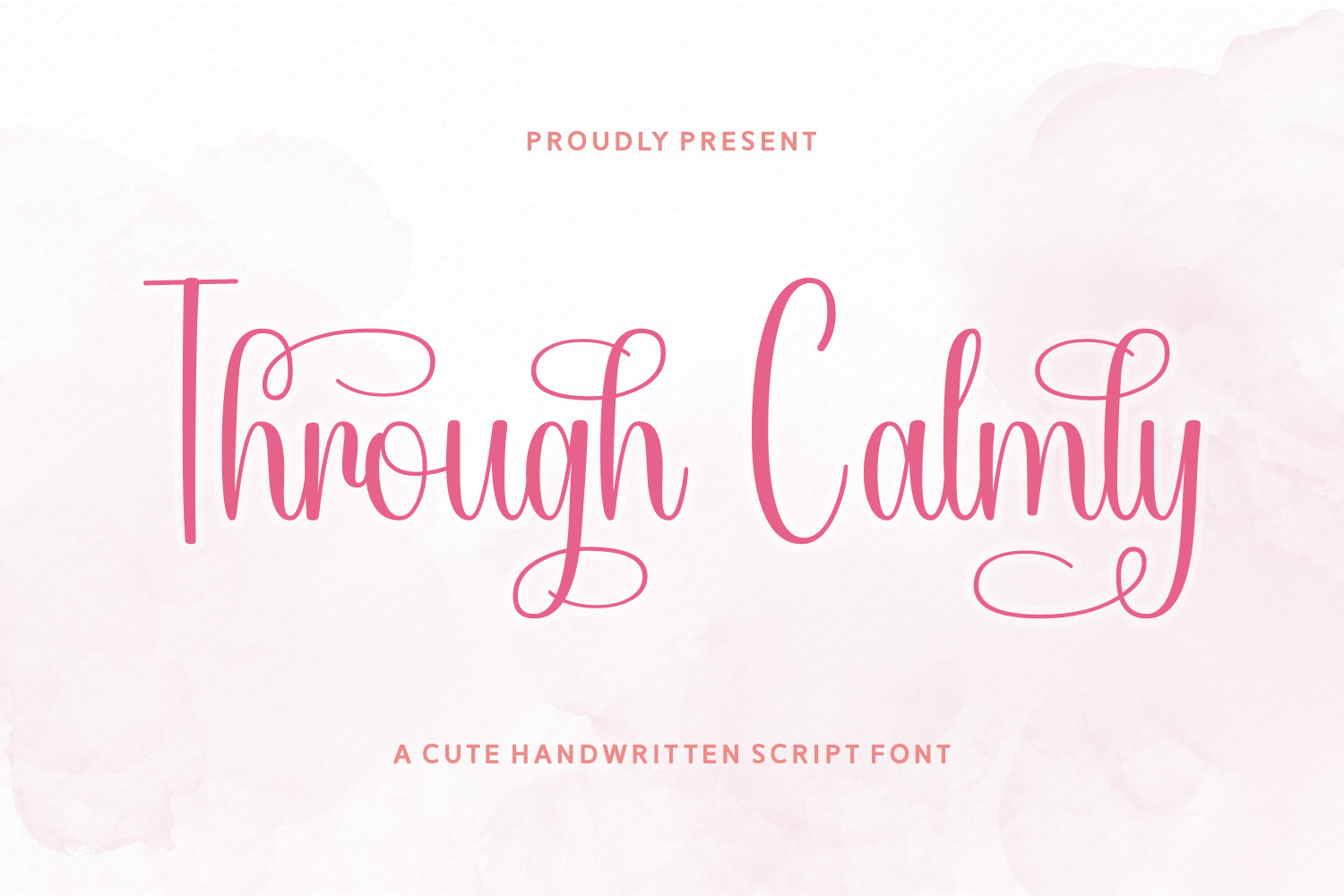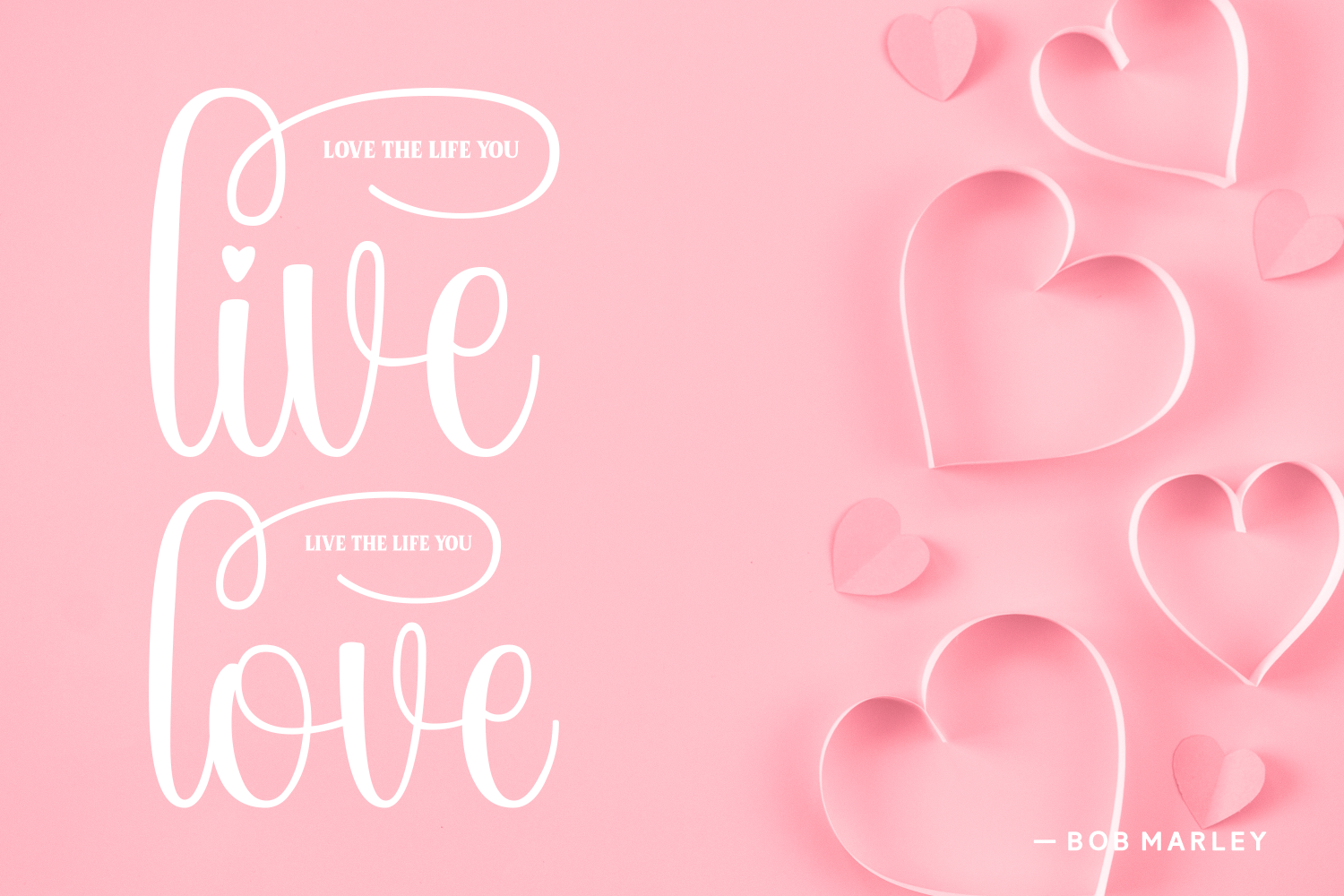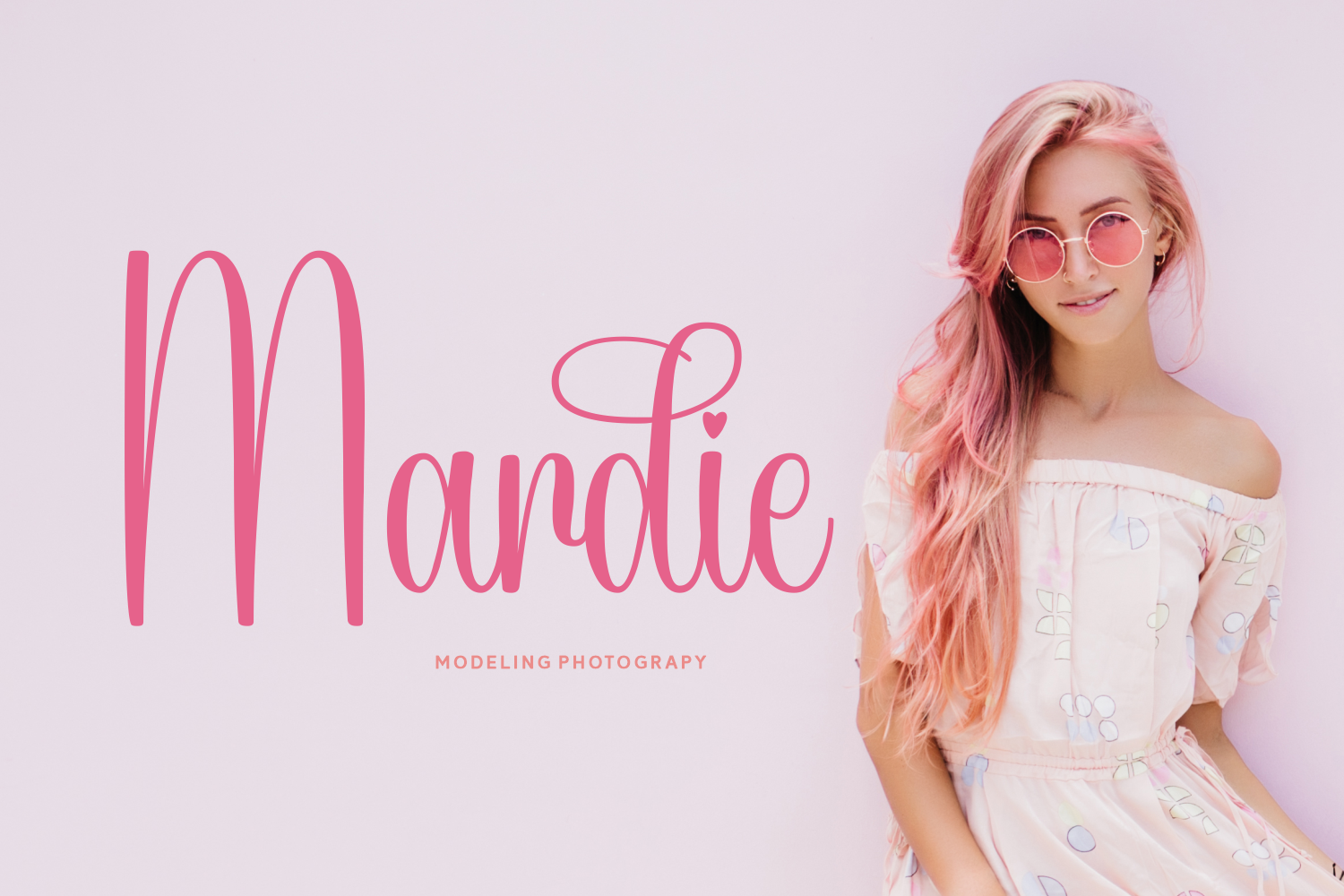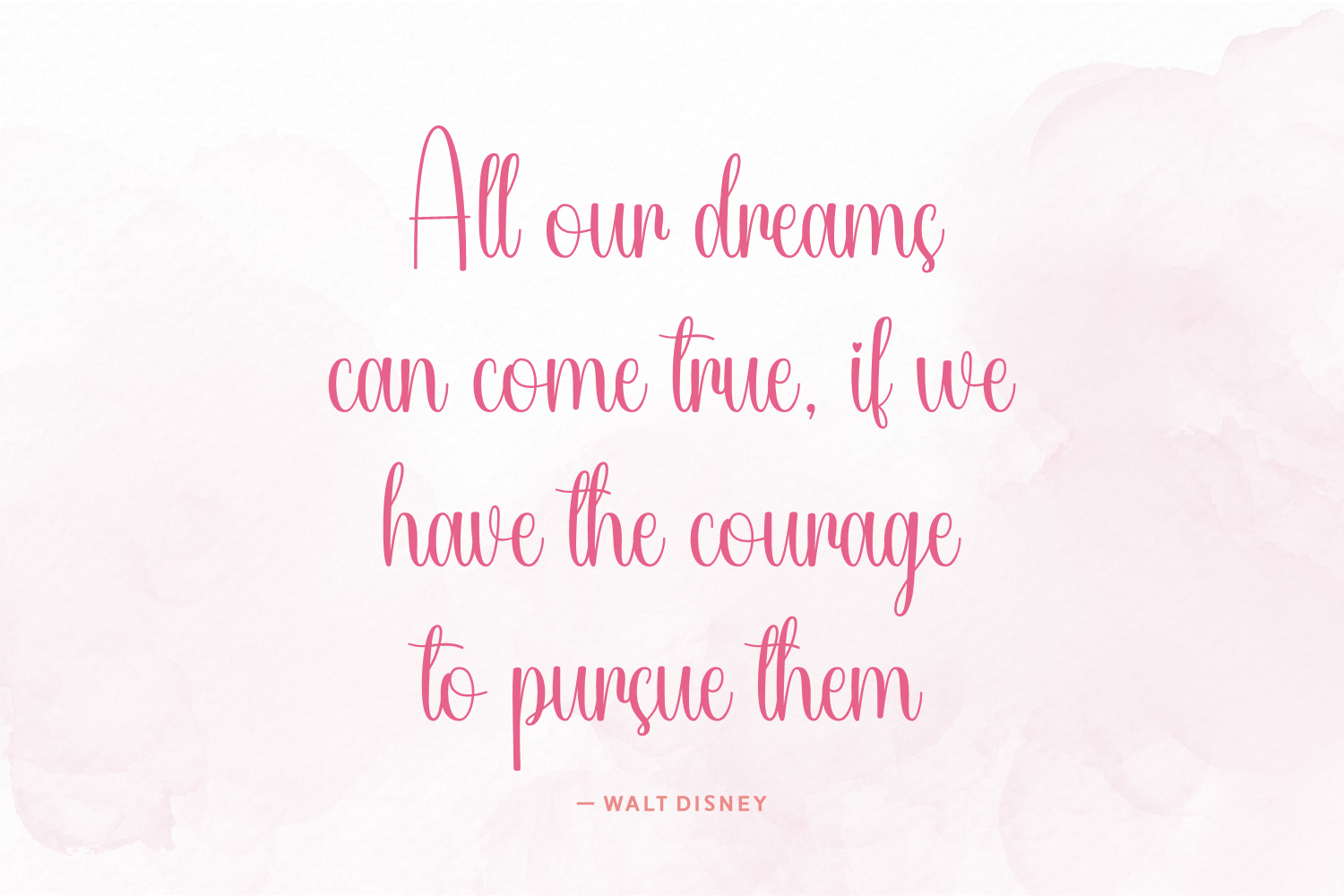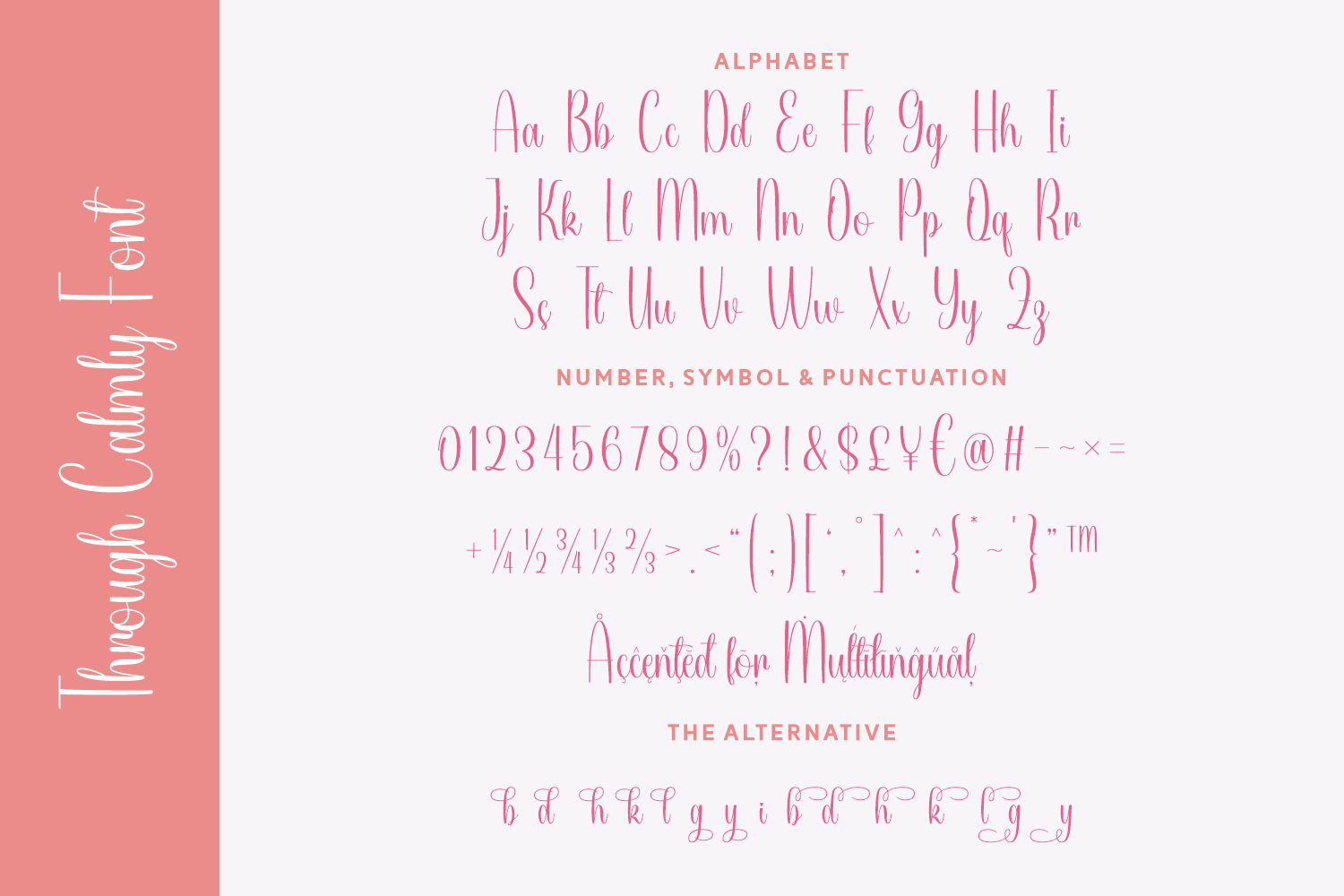
Through Calmly
Through Calmly is a sweet and playful handwritten script font that radiates elegance and charm. With its tall, slender letterforms and gracefully looping swashes, this font adds a delightful personal touch to any design.